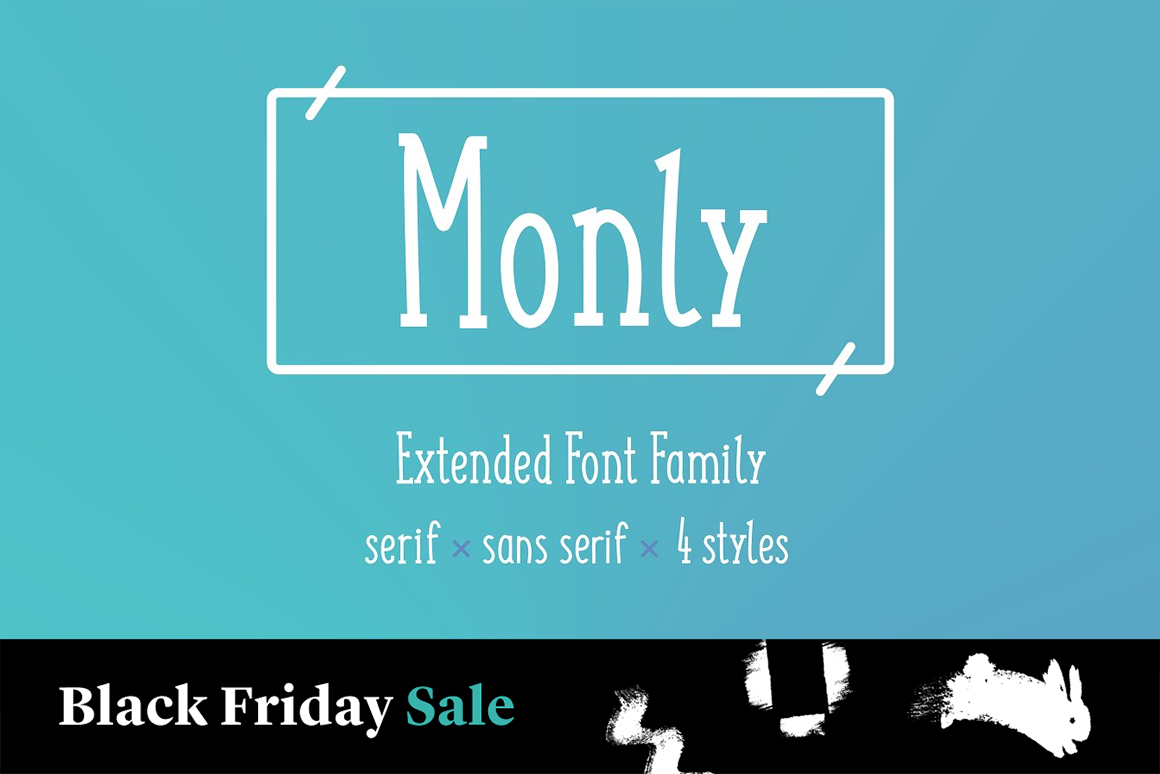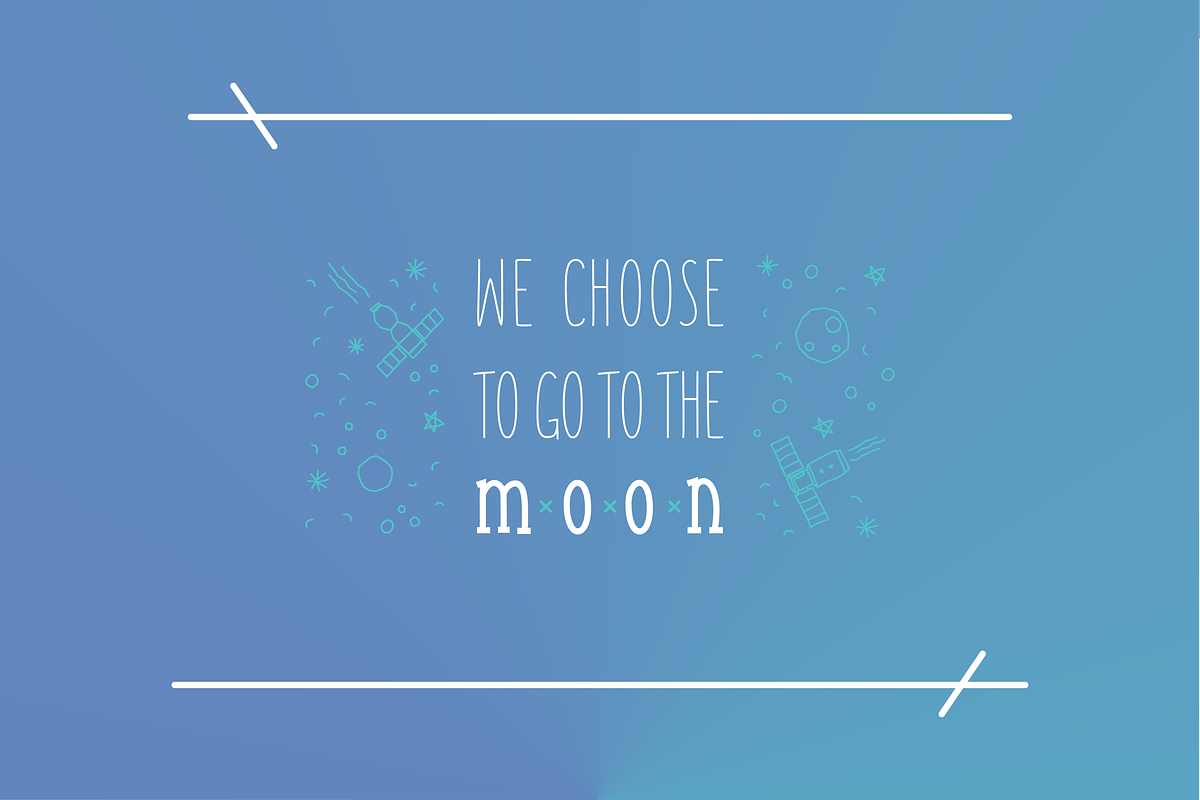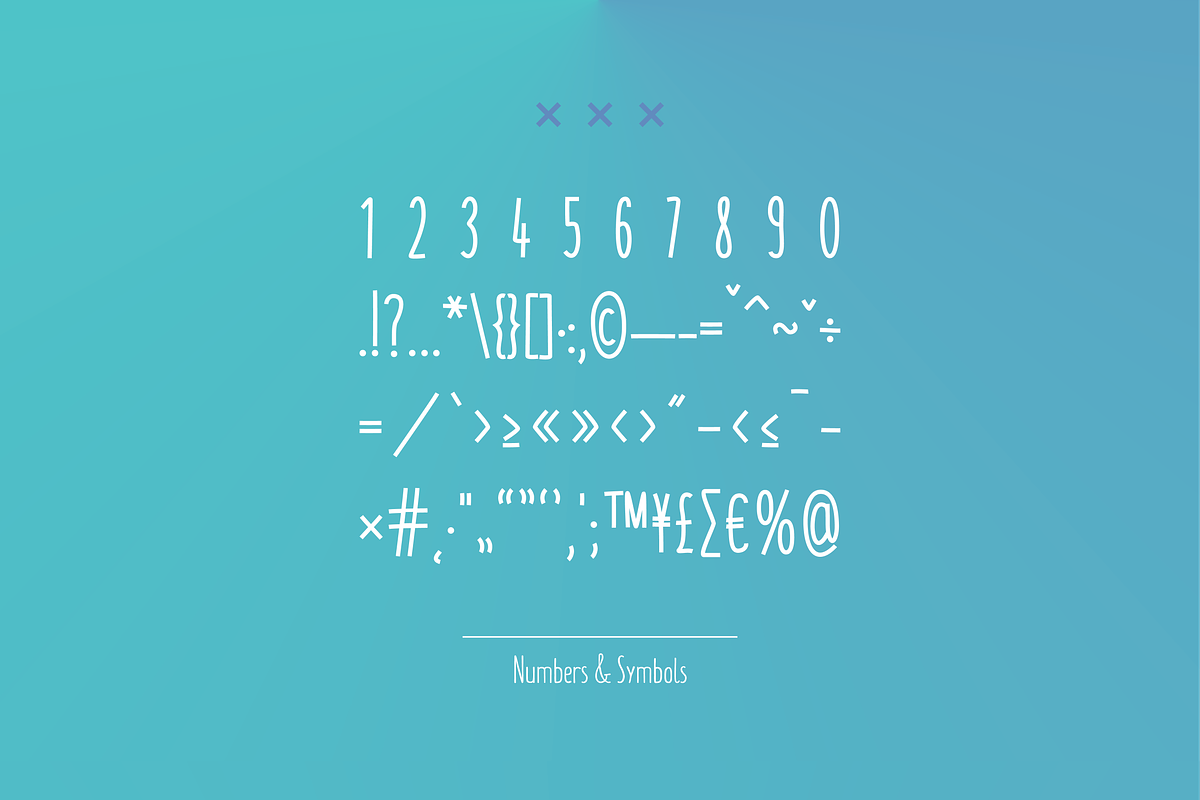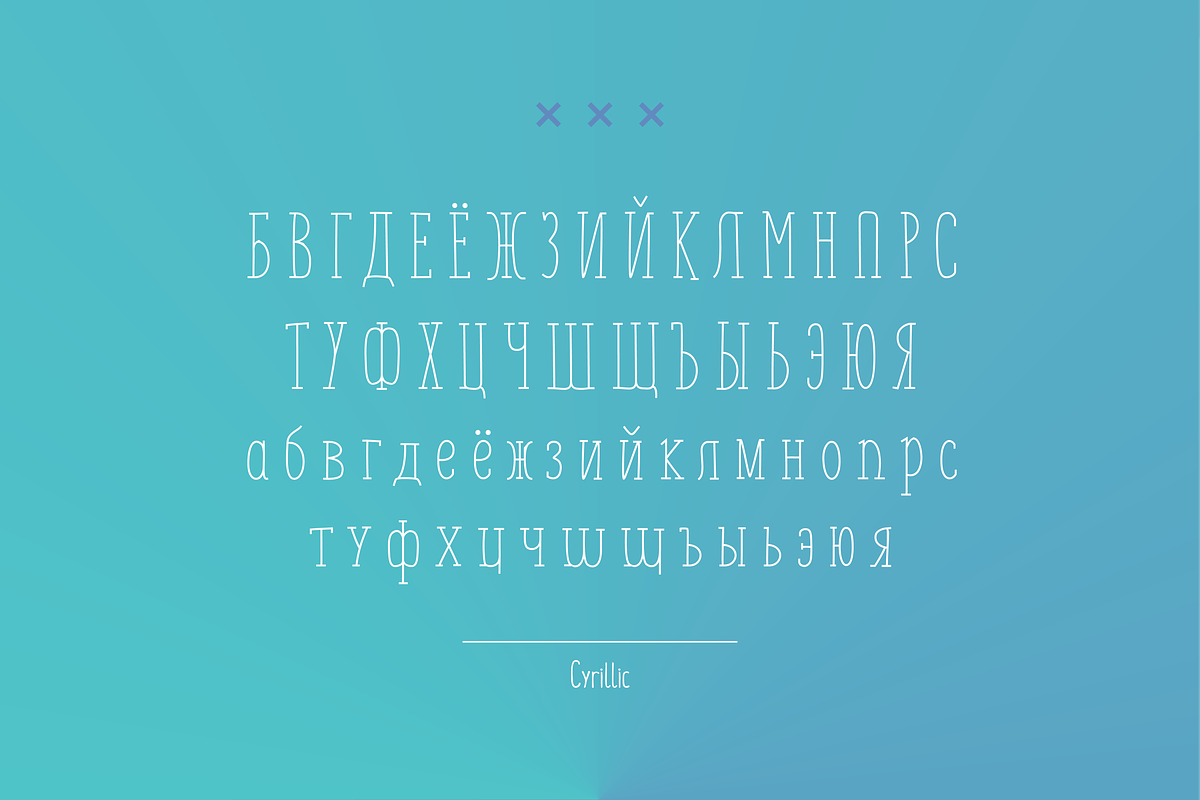
Monly Extended Font
Monly is playful and easy to read typeface, the constructions is based on a single line curve all the way. Serif and Sans Serif font files are included.
Monly Exnteded font includes uppercase and lowercase letters as well as two weights for each style. Latin and Cyrillic extended letters also included.